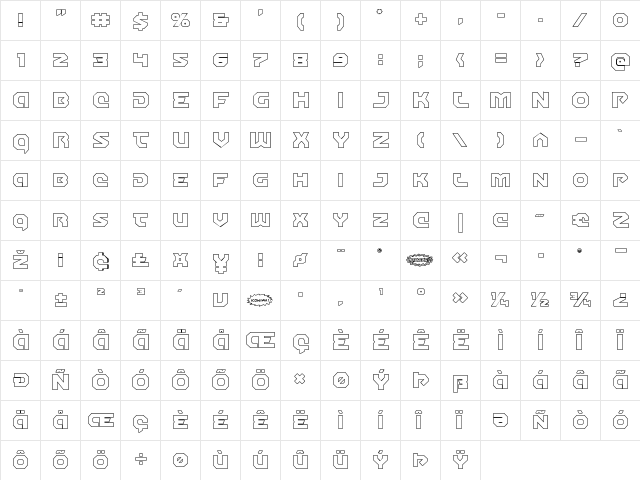
Gunner Storm Outline Regular
Design Context for Gunner Storm Outline Typeface
Gunner Storm Outline brings ornamental detail and strong personality to headlines and identities, where visual impact matters more than quiet functionality.
Font Pairing: Pair with a clean neutral sans-serif for body copy to let Gunner Storm Outline's character lead without overwhelming the composition.
Pro Tip: Treat Gunner Storm Outline as the centrepiece of your typographic hierarchy. One strong heading set in a decorative face can carry an entire layout.